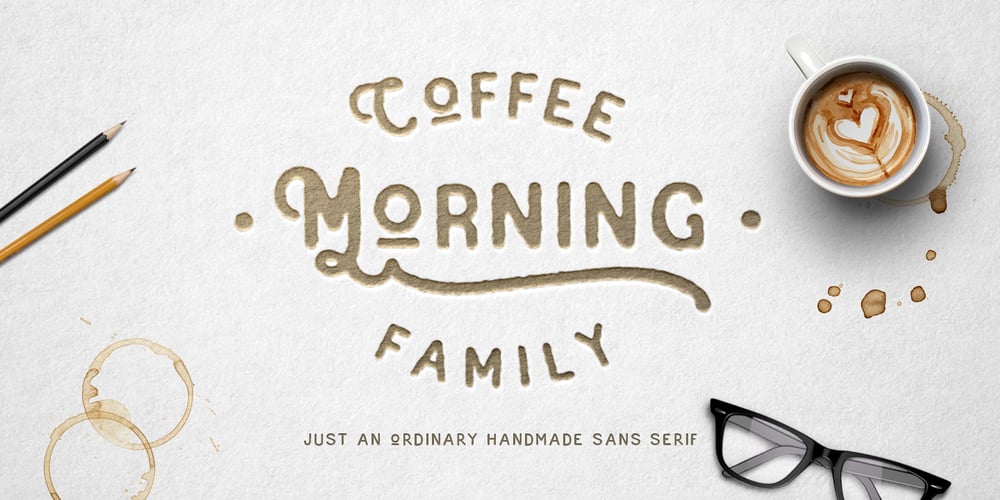
Coffee Morning
Coffee Morning font
Coffee Morning Font Family was designed by published by me55enjah. Coffee Morning contains 5 styles and family package options. Handmade sans serif with rugged and imperfect edges shapes. Coffee Morning with Milk has rounded edges bring a vintage look and alternate character make it more stylish. And Coffee Morning Sans has rough stroke, imperfect shapes, make this typeface has its own taste, like coffee in the morning, raw and strong. * COFFEE MORNING WITH MILK features: All Caps, small caps, numeral, punctuation, alternate characters & ligatures. * COFFEE MORNING SANS features: All Caps, numeral, and punctuation. Have a wonderful day with a cup of coffee in the morning 🙂